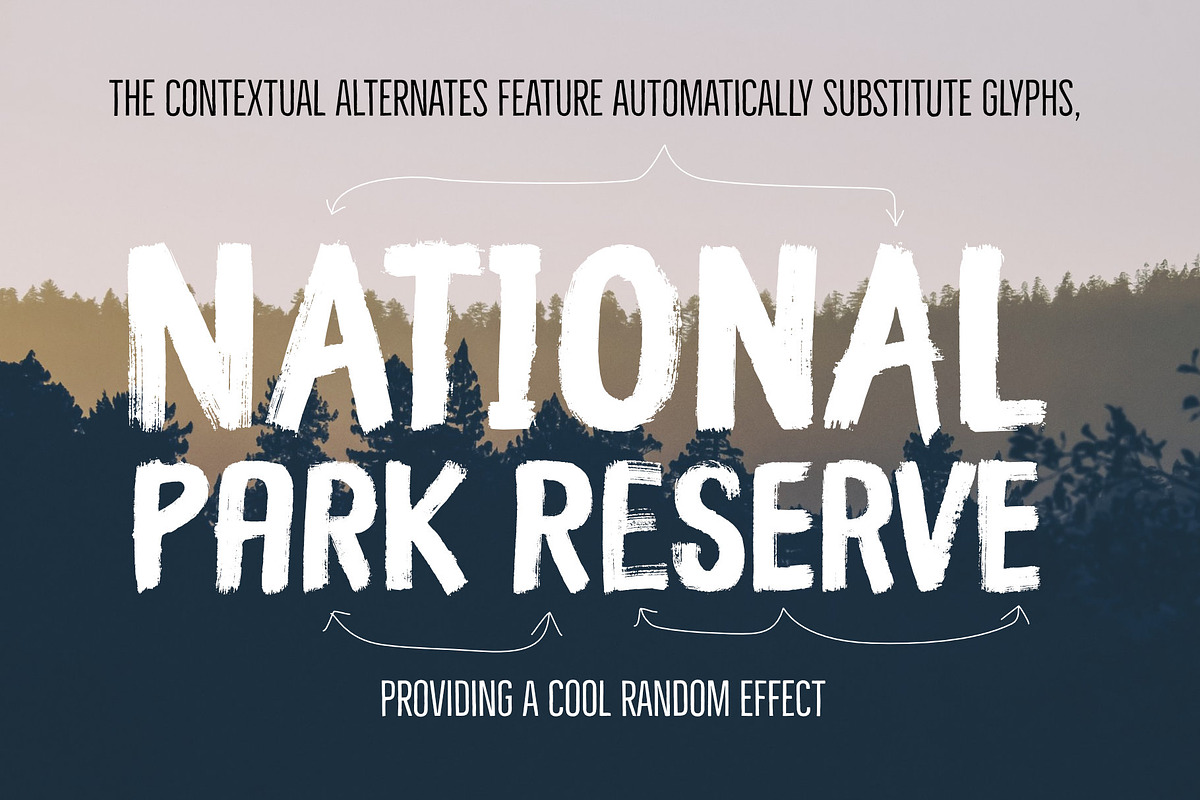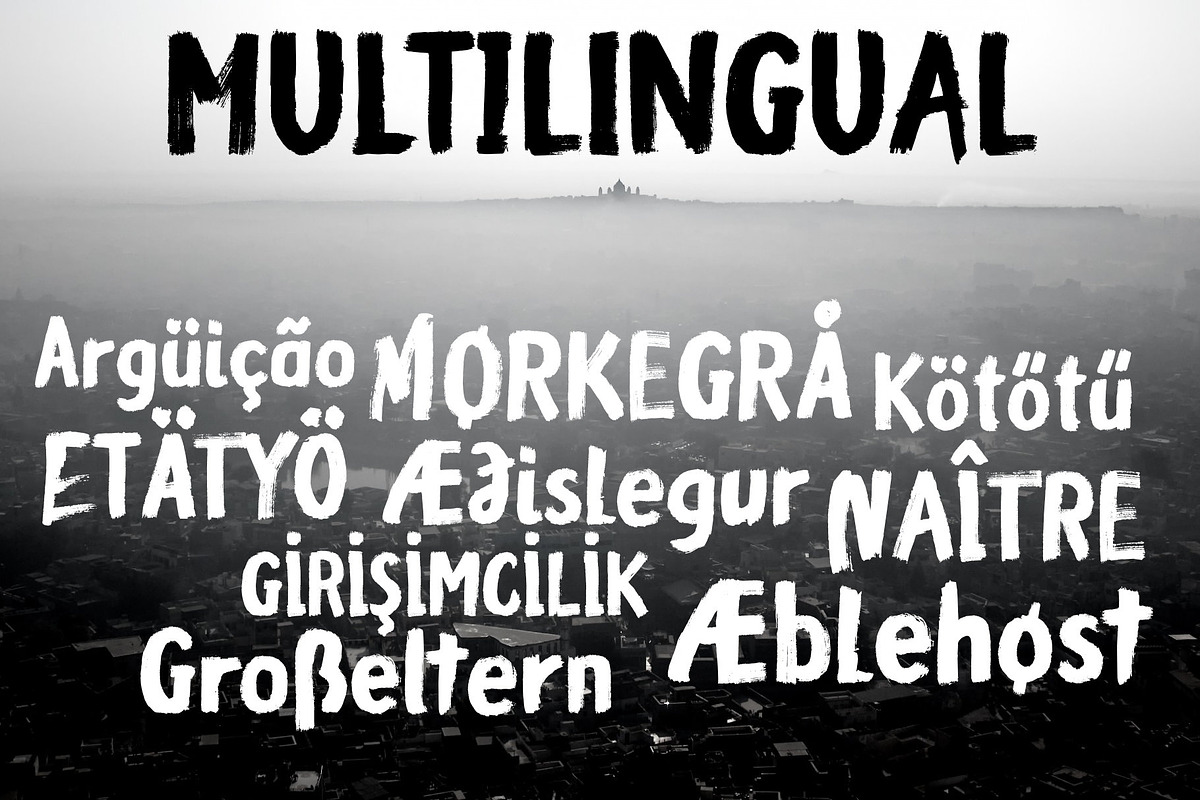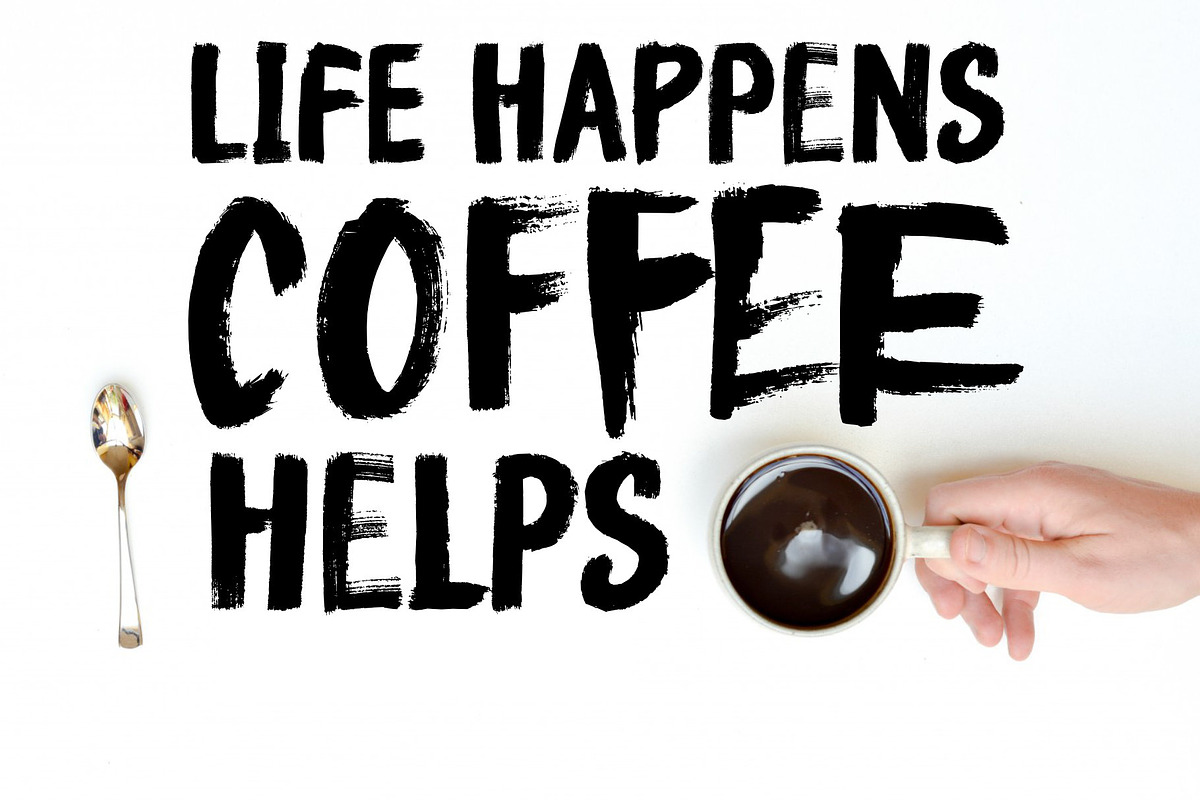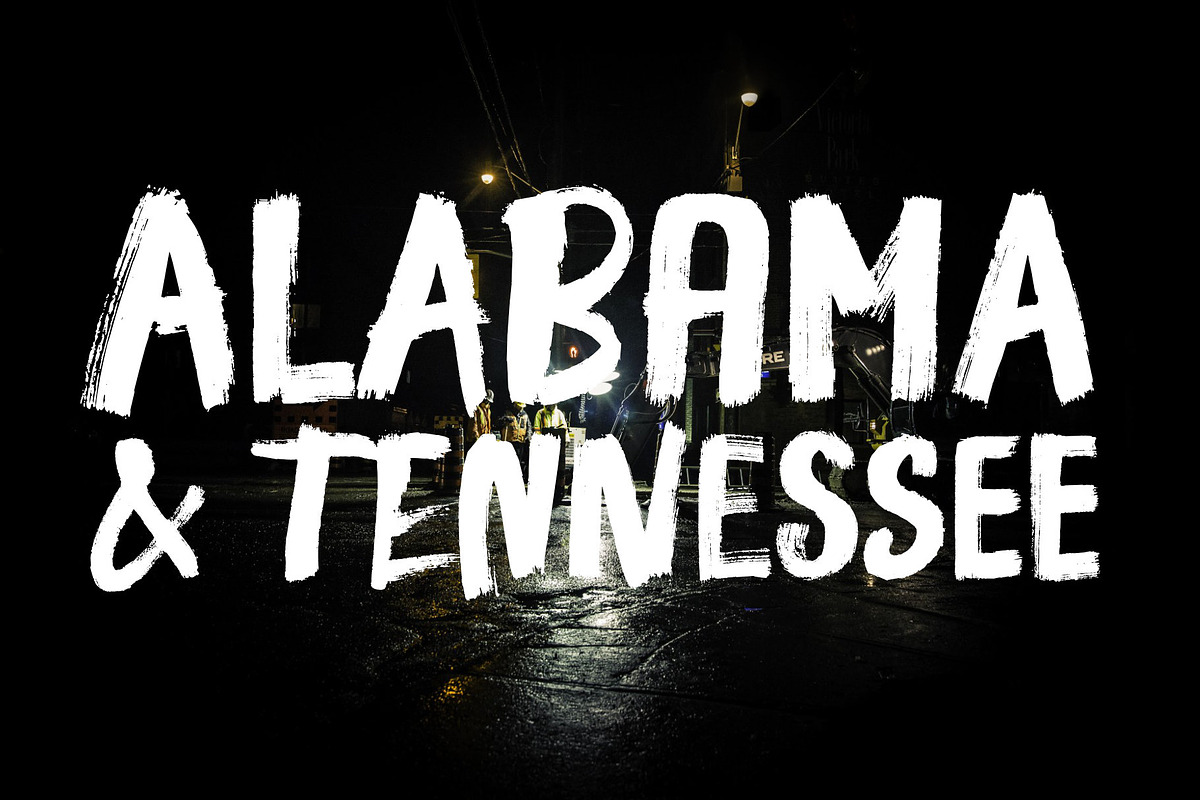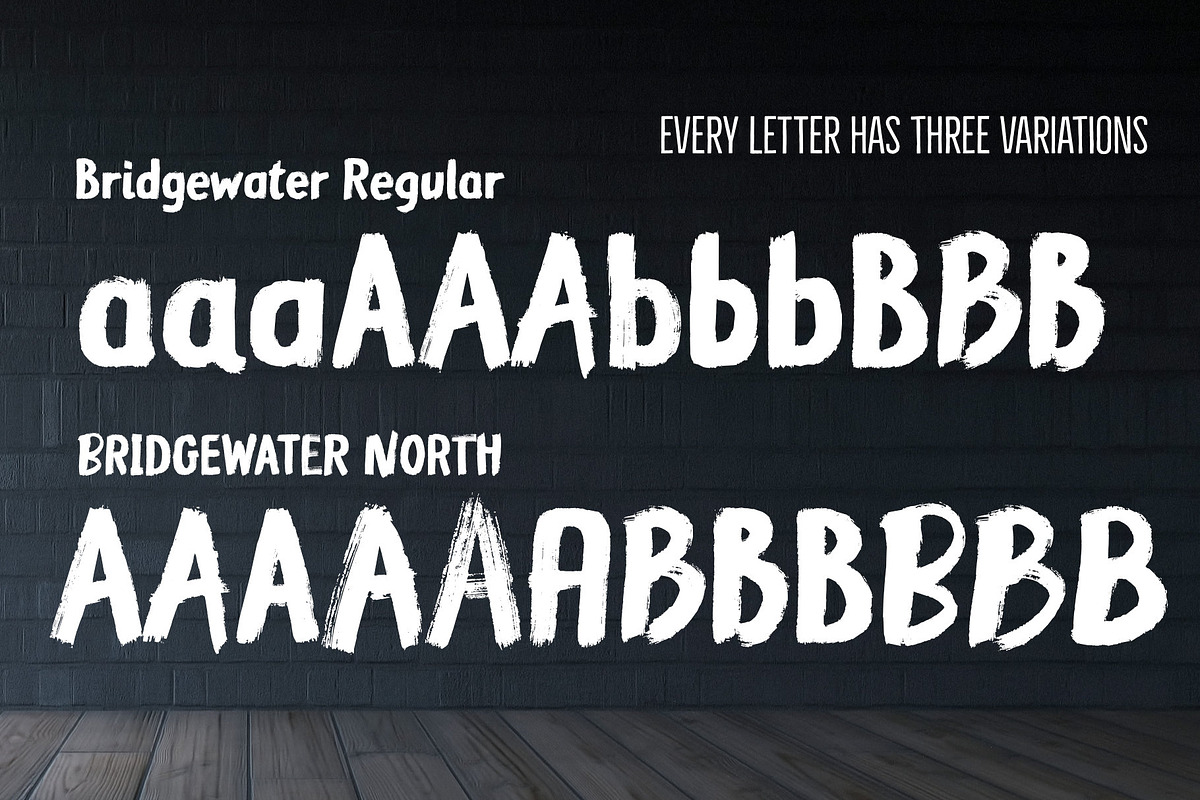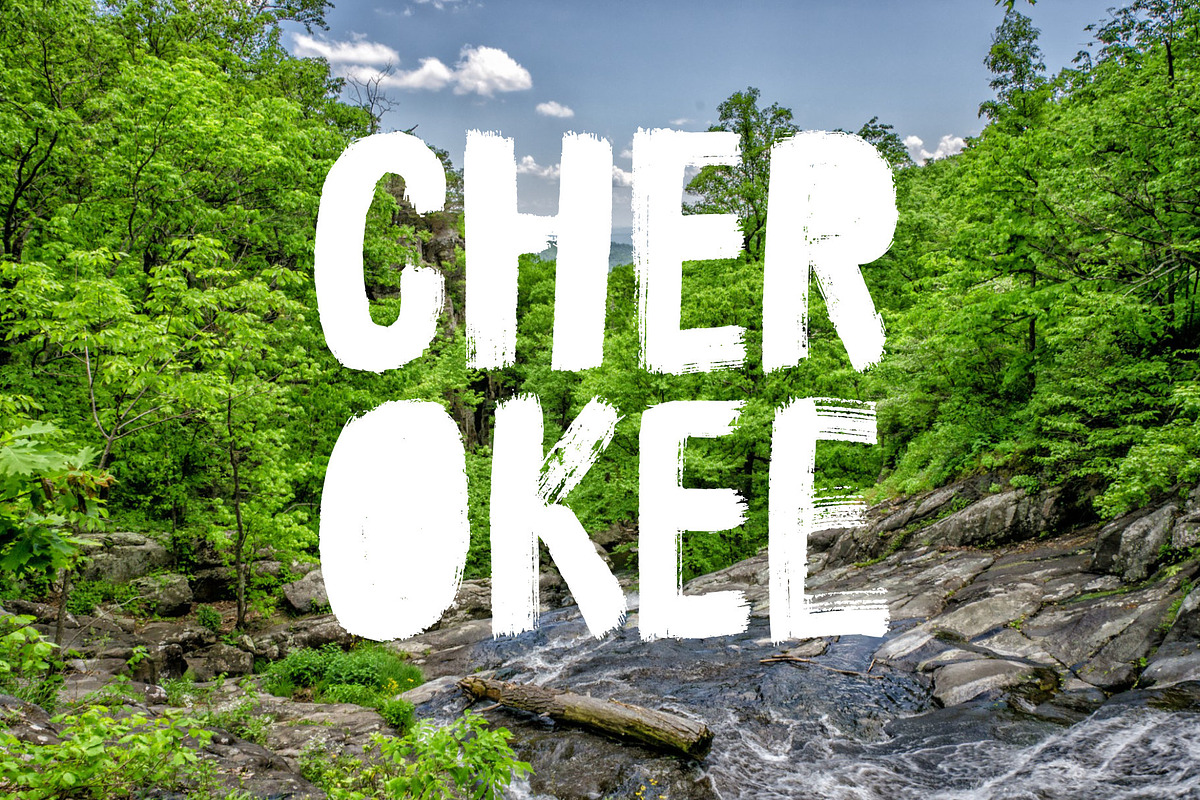
Bridgewater - 3 fonts
Bridgewater is a hand-drawn, brush font with contextual alternates to help with flow and readability.
Each letter and number has three variations. When the font is used in OpenType-savvy applications, the 3 variants of glyphs are automatically alternated to achieve a random-like effect.
- Language support includes Western, Central and Eastern European character sets, as well as Baltic and Turkish languages.